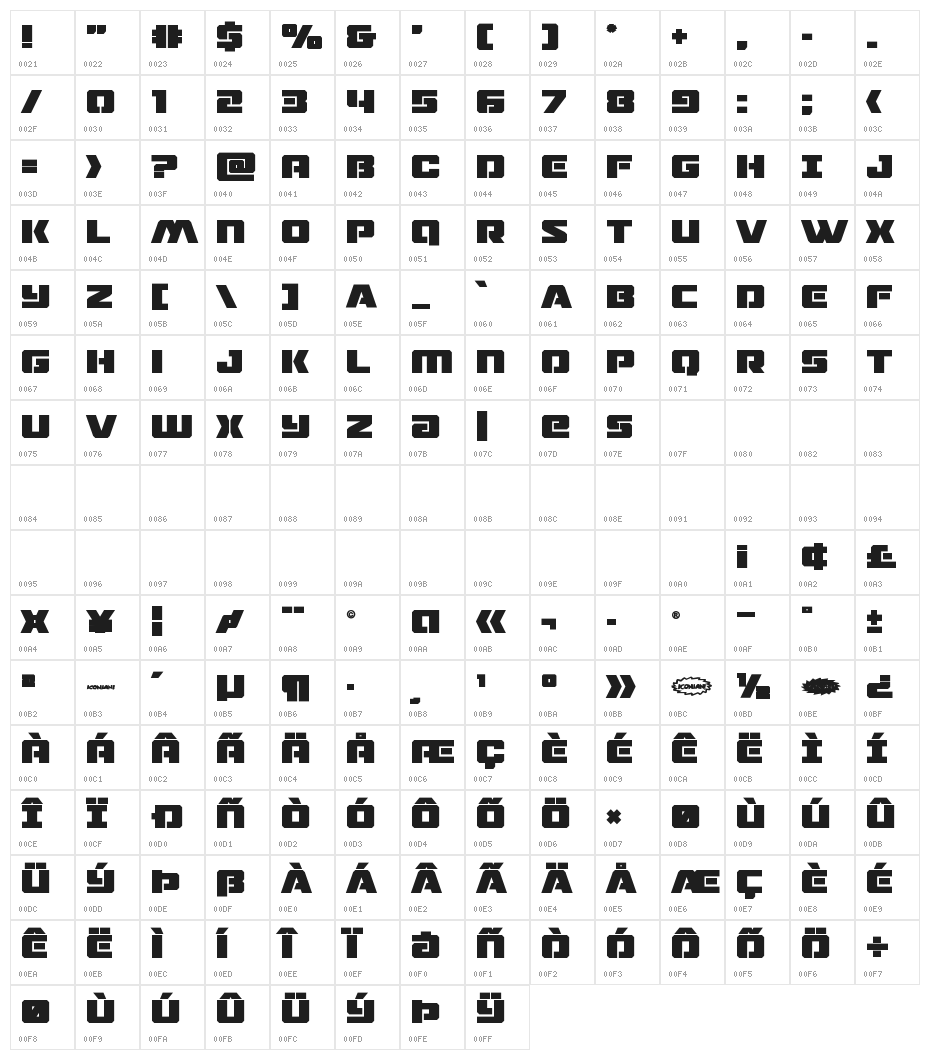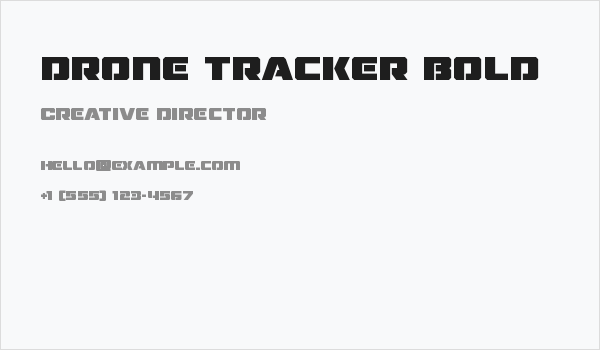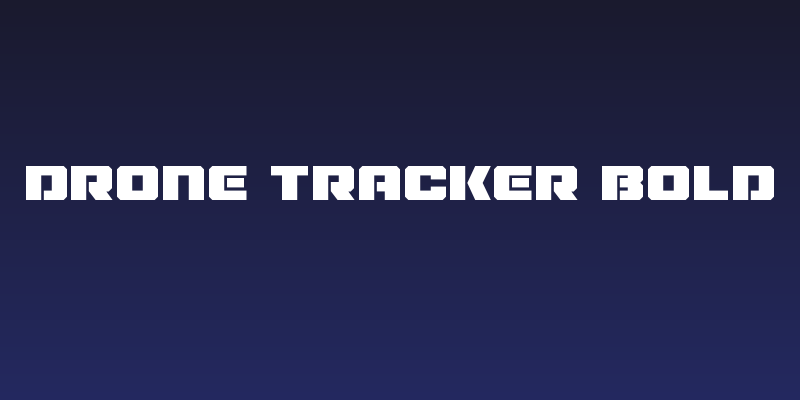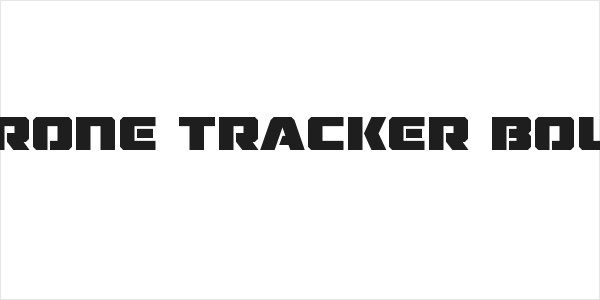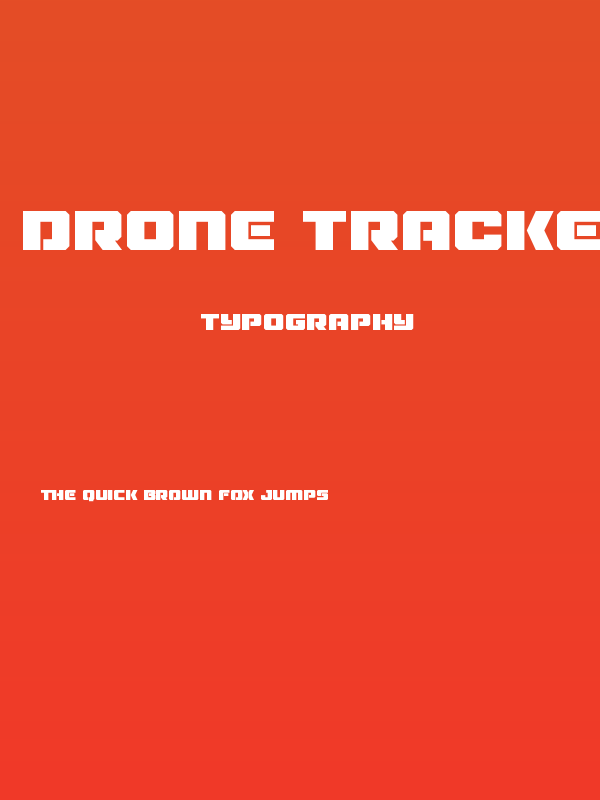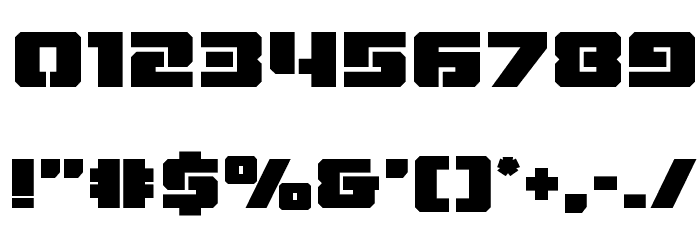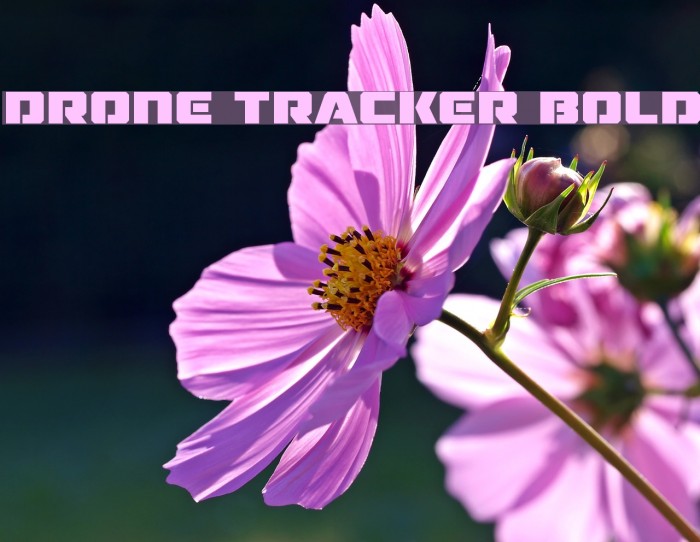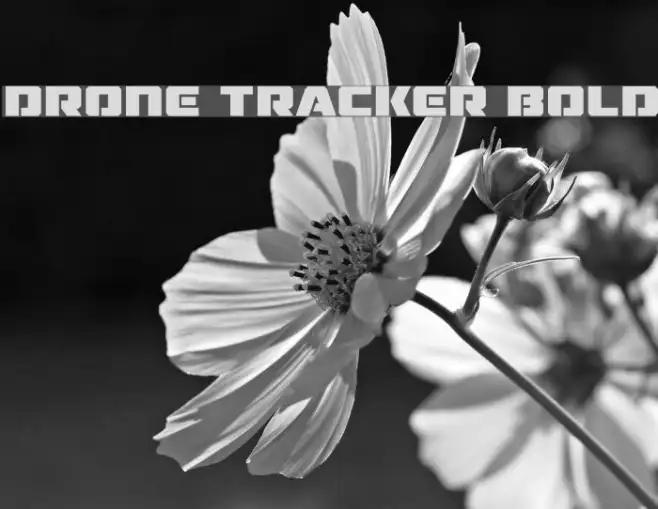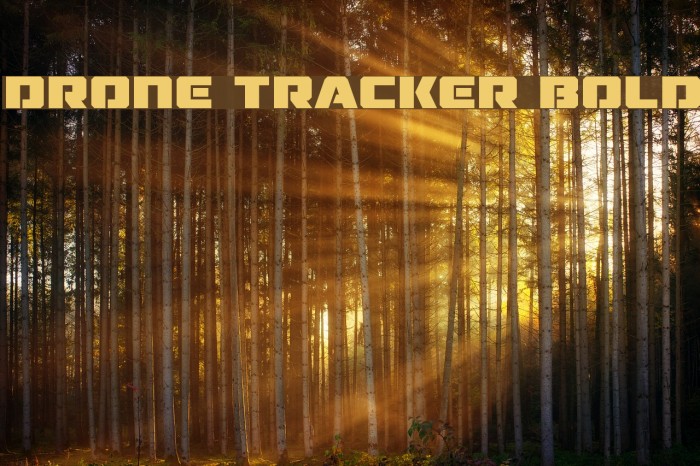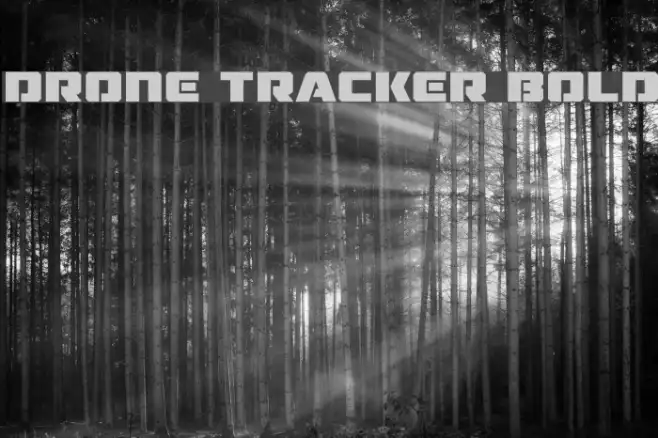
Drone Tracker Bold Font
Drone Tracker Bold Description
This font features a bold and geometric design with a futuristic and industrial feel. The characters are constructed with strong, angular lines and sharp edges, giving it a robust and impactful appearance. The uppercase and lowercase letters maintain a consistent style, emphasizing uniformity and precision. The numerals and special characters are designed to match the boldness and angularity of the alphabet, ensuring a cohesive look across all glyphs. This font is ideal for projects that require a modern and assertive aesthetic, such as technology branding, sports team logos, or video game titles.
| Proposed Projects | Ideal for technology branding, sports logos, video game titles, and futuristic designs. |